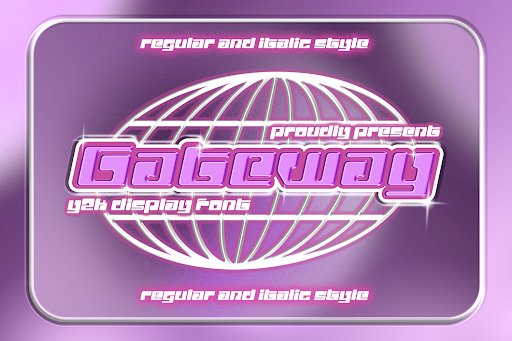
The Ultimate 2026 Guide to Y2K Fonts: Retro-Futuristic Typography for Bold Designs
Ready to transport your designs back to the dial-up era with a modern twist? The Y2K aesthetic is completely dominating the creative scene in 2026, blending neon-soaked nostalgia with edgy, futuristic vibes.
Whether you are designing streetwear apparel, album covers, or edgy social media graphics, these striking Y2K fonts will inject the perfect amount of retro-futuristic energy into your next big project.
1. Y2k Nostalgia Font by Bambin
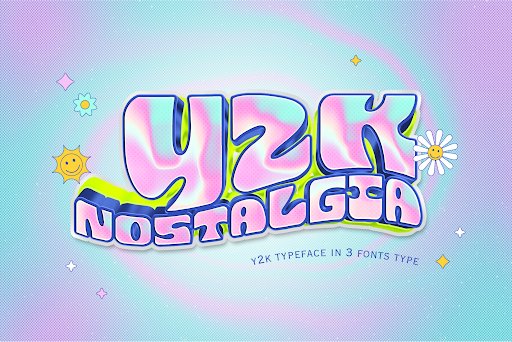
Capture the undisputed charm of the early internet age with the Y2k Nostalgia Font by Bambin. This bold typeface effortlessly blends cyber-inspired curves with a chunky, rebellious structure that screams 2026 streetwear.
2. Cybernetic Font by Dansdesign
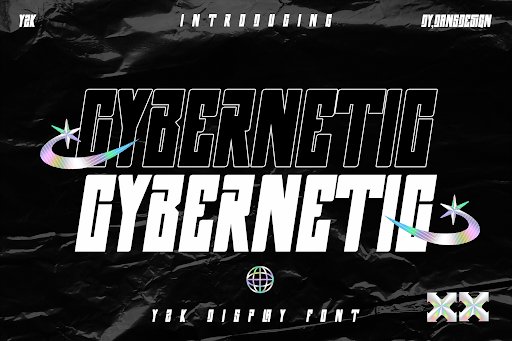
Enter the digital frontier with Cybernetic, a striking font by Dansdesign that perfectly embodies the fast-paced tech evolution of the millennium. Its razor-sharp edges and futuristic forms are practically tailor-made for sci-fi-themed projects.
3. Noser Font by Marvadesign
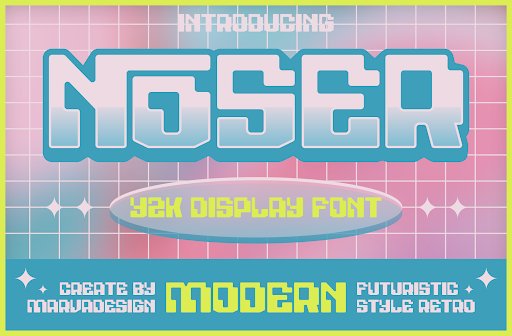
Noser Font by Marvadesign is a quirky, standout typeface that channels the raw, unfiltered energy of early 2000s pop culture. Its distinct letterforms carry a sense of playful rebellion that instantly grabs attention.
4. Rebel Frisco Graffiti Urban Y2k Font by Dansdesign
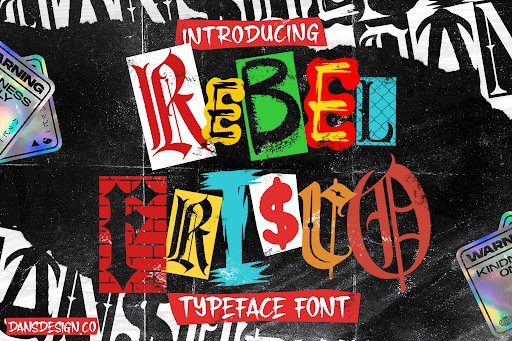
Bring the gritty, unapologetic vibe of street art to your digital canvas with Rebel Frisco Graffiti Urban Y2k. Designed by Dansdesign, this font captures the essence of underground skate culture and urban exploration.
In the 2026 design landscape, authenticity is everything. Rebel Frisco gives your branding, album covers, and merchandise designs an organic, hand-sprayed feel that resonates with modern audiences looking for that genuine Y2K aesthetic.
5. Afrodotz Font by konstantinestudio
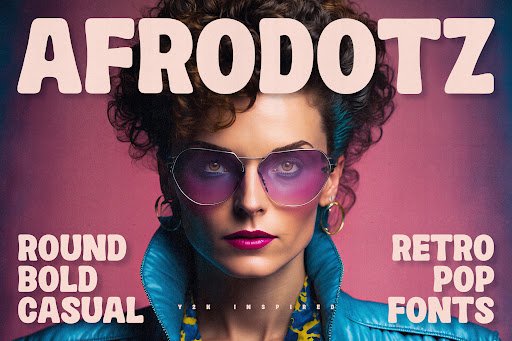
Afrodotz Font by konstantinestudio is a mesmerizing blend of retro-pixel styling and smooth, contemporary curves. It evokes memories of early handheld consoles and low-res digital interfaces, making it a nostalgic powerhouse.
6. Magic Vigerland Font by Dansdesign
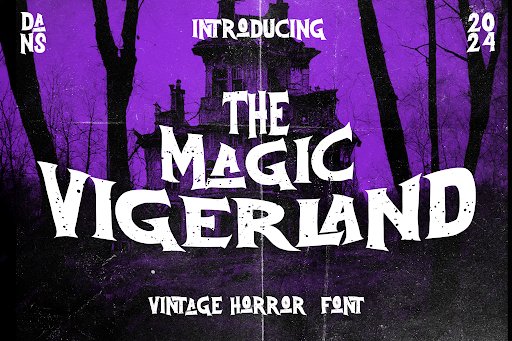
Step into a world of whimsical fantasy with Magic Vigerland Font by Dansdesign. This enchanting typeface fuses classic Y2K experimental shapes with an almost otherworldly, magical flow.
7. Acanica Font by Rasiorise Studio
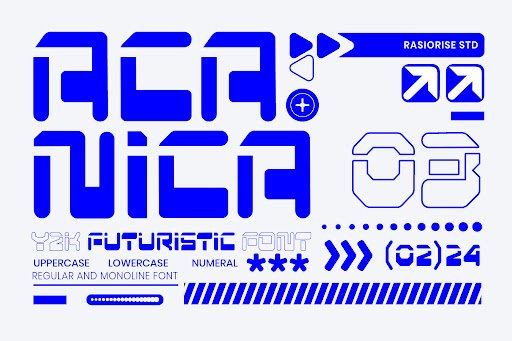
Acanica Font by Rasiorise Studio delivers a sleek, aerodynamic look that feels like it belongs on the side of a futuristic racing vehicle. Its fast-paced, italicized structure is all about motion and momentum.
As one of the most dynamic fonts of 2026, Acanica is the perfect choice for sports brands, automotive design, and high-energy promotional materials. Download it today to inject your projects with an undeniable sense of speed and style.
8. Urban Purple Font by Dansdesign
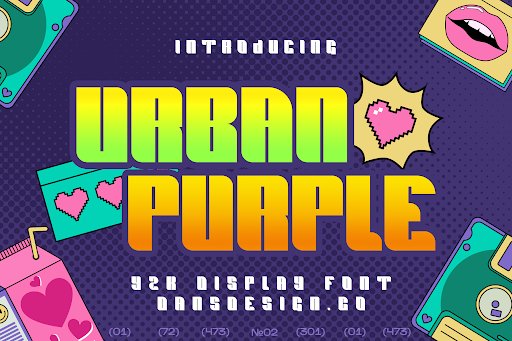
Embrace the neon-lit nights of the Y2K era with Urban Purple Font by Dansdesign. This typeface captures the glossy, metallic aesthetics of early 2000s R&B and pop culture with its bold, blocky letterforms.
A must-have for 2026 designers working in the music and entertainment industry, Urban Purple guarantees your headlines will pop off the screen. It is incredibly versatile, making it a reliable choice for both digital and print media.
9. Arenka Font by Whymore
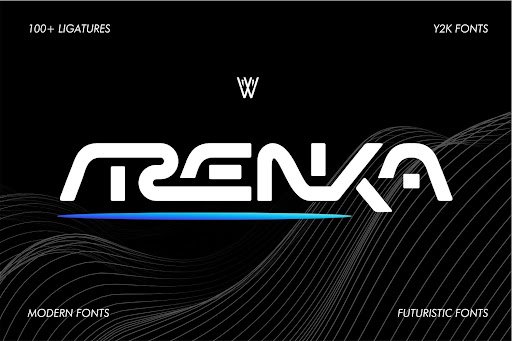
Arenka Font by Whymore is a masterclass in retro-futuristic minimalism. Its clean, geometric lines are juxtaposed with subtle, unexpected curves that give it a distinct early-2000s tech company vibe.
For modern 2026 tech startups, sleek UI/UX interfaces, and futuristic branding, Arenka offers unmatched clarity and character. It is a sophisticated nod to the past that functions perfectly in contemporary design environments.
Its bold, bubbly presence is ideal for making loud statements in 2026. Whether used for standout packaging, funky poster designs, or trendy streetwear, Bavose guarantees your message will not go unnoticed.
Incorporating these dynamic Y2K fonts into your 2026 design toolkit is the fastest way to make your artwork stand out from the crowd. From blocky cybernetic lettering to playful graffiti styles, the retro-futuristic aesthetic has never looked better.
Do not be afraid to experiment, mix styles, and let that early-2000s energy flow through your next masterpiece!